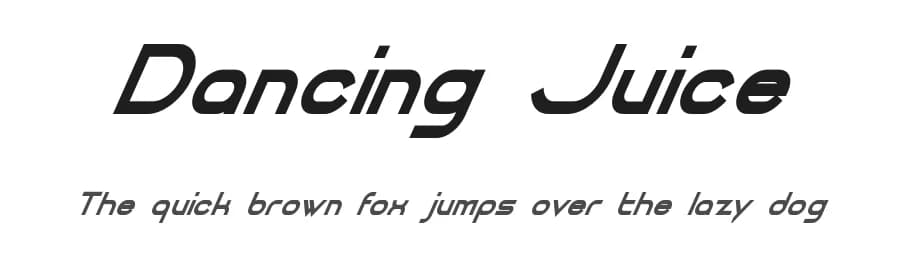
About Dancing Juice Font
Dancing Juice is a sans-serif font designed by dondon nillo. It includes 231 glyphs, a bold weight, OTF (CFF) format, and 217 languages. Dancing Juice is free to download; check the license details on this page before commercial use. Sans-serif fonts like Dancing Juice work best for clean body text, user interfaces, branding, and modern layouts.
Dancing Juice Font is a versatile sans-serif font that works for both headings and body text. Pair it with a contrasting serif or slab serif font to add visual interest and a clear distinction between titles and body copy.
Dancing Juice Font
by dondon nillo
Dancing Juice Font is a sans serif typeface by dondon nillo, ideal for logos, invitations, branding, and creative projects.